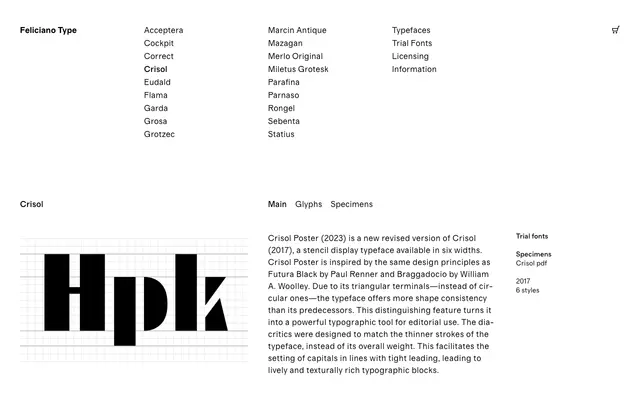
Crisol
Feliciano Type · 2017
A geometric stencil display typeface in six widths, distinguished from Futura Black and Braggadocio by triangular rather than circular terminals.
Originally released in 2017, Crisol received a revised Poster version in 2023 that shares the geometric principles of Futura Black and Braggadocio while replacing circular terminals with triangular ones for greater formal consistency across the family. Six width variants run from Wide to XXX Condensed, giving the family unusual range for a stencil face. Diacritics are drawn to match the thinner strokes rather than the overall weight, which aids tight-leaded all-caps setting and produces dense, texturally active typographic blocks.
A stencil display typeface with geometric construction inspired by Futura Black and Braggadocio, with triangular terminals and six width variants designed for large-scale editorial use.